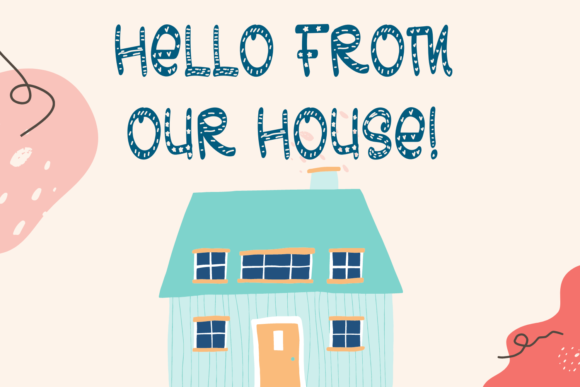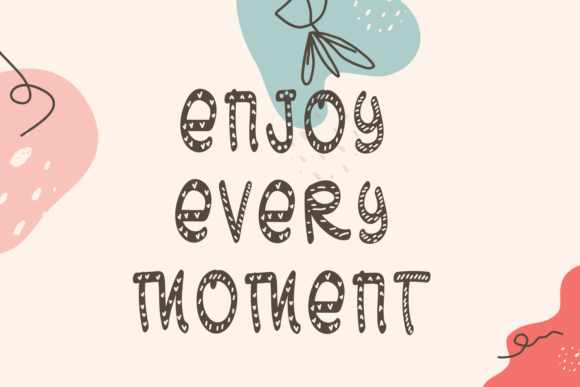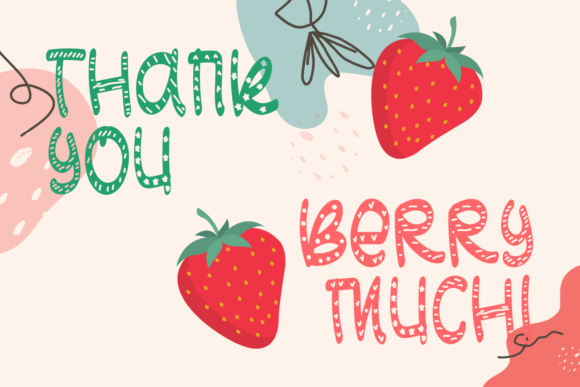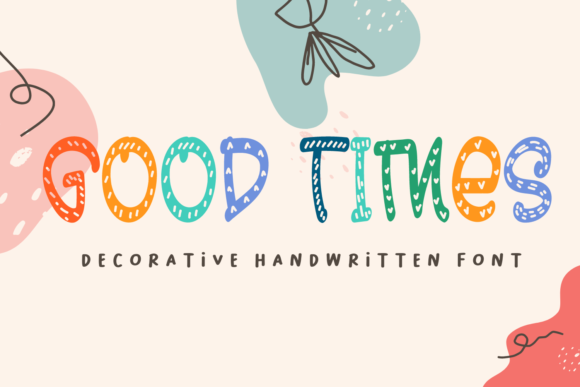
Introducing Good Times Font: The Perfect Choice for Playful Designs
Are you looking for a font that can add a touch of playfulness and joy to your designs? Look no further than Good Times Font! This delightful display font is perfect for creating fun and engaging designs, especially for children-themed projects. When paired with bright colors, Good Times Font can bring a sense of excitement and energy to your work.
What is Good Times Font?
Good Times Font is a playful and jolly display font that is designed to bring a smile to your face. Its unique and quirky style makes it perfect for a variety of design projects, from children’s party invitations to educational materials, and even branding for kids’ products. The font’s friendly and approachable feel makes it an excellent choice for designers who want to create a sense of warmth and approachability in their work.
Characteristics of Good Times Font
So, what makes Good Times Font so special? Here are some of its key characteristics:
- Playful and jolly: Good Times Font has a fun and carefree vibe that’s perfect for creating playful designs.
- Display font: This font is designed to make a statement, making it perfect for headlines, titles, and other display text.
- Children-themed designs: Good Times Font is especially well-suited for designs aimed at children, such as party invitations, educational materials, and kids’ product branding.
- Bright color pairing: When paired with bright colors, Good Times Font can add an extra layer of fun and energy to your designs.
How to Use Good Times Font in Your Designs
Good Times Font is incredibly versatile and can be used in a variety of design projects. Here are some ideas to get you started:
- Children’s party invitations: Create fun and playful invitations that set the tone for an unforgettable party.
- Educational materials: Use Good Times Font to create engaging and interactive educational materials, such as worksheets, activity sheets, and posters.
- Kids’ product branding: Give your kids’ products a fun and playful brand identity with Good Times Font.
- Social media graphics: Add a touch of playfulness to your social media graphics, such as Facebook posts, Instagram stories, and Twitter headers.
Tips for Pairing Good Times Font with Bright Colors
When pairing Good Times Font with bright colors, here are some tips to keep in mind:
- Choose bold and bright colors: Good Times Font looks best with bold and bright colors that match its playful and jolly vibe.
- Experiment with color combinations: Try out different color combinations to find the perfect pairing for your design.
- Consider the design context: Make sure the color pairing fits with the overall design context and message.
| Font Name | Good Times Font |
| Author | Al Ghul |
In conclusion, Good Times Font is a playful and jolly display font that’s perfect for creating fun and engaging designs, especially for children-themed projects. Its unique and quirky style makes it an excellent choice for designers who want to add a touch of playfulness and joy to their work. When paired with bright colors, Good Times Font can bring a sense of excitement and energy to your designs. So why not give Good Times Font a try and see how it can elevate your designs?